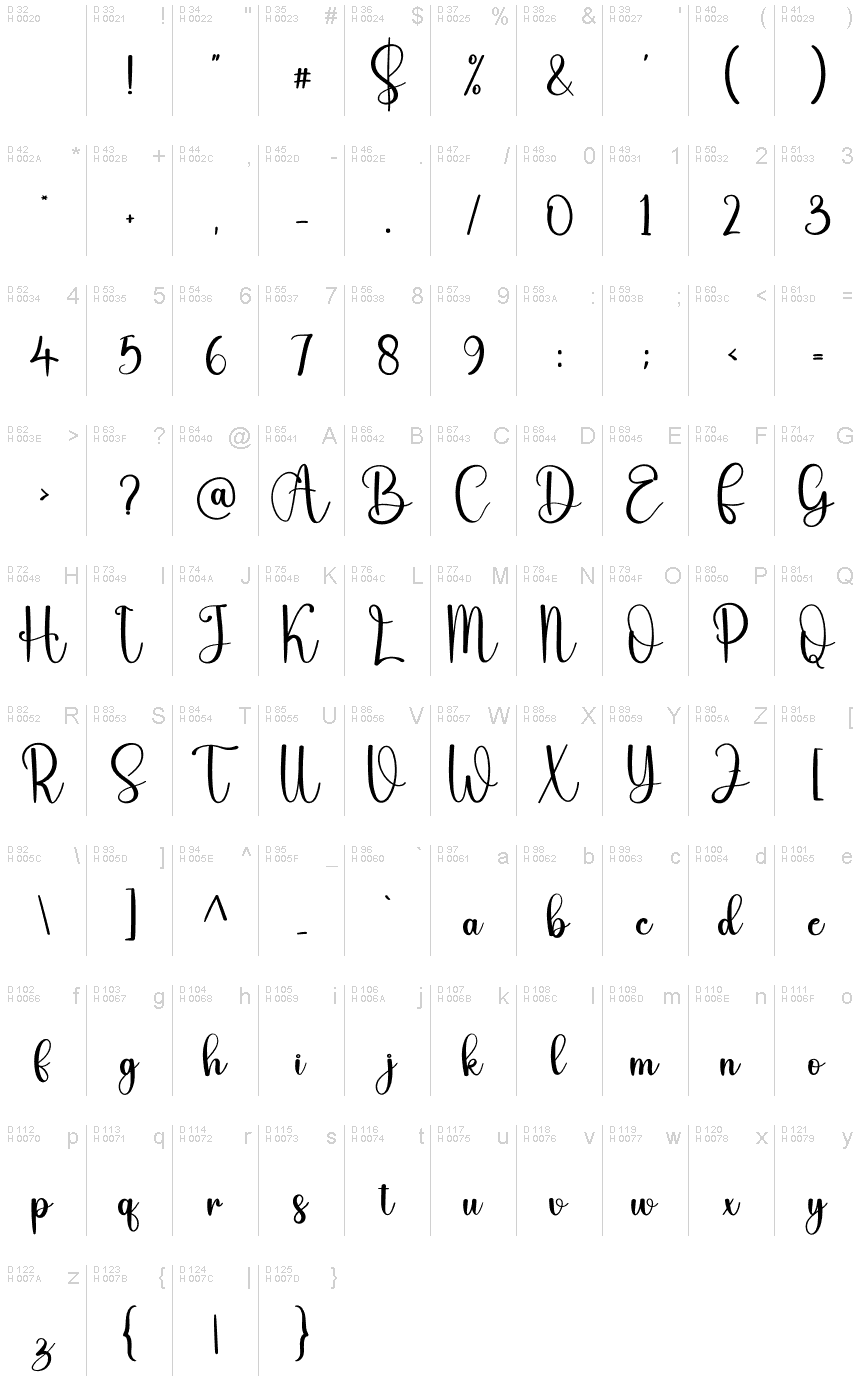
Almond
Almond, a mesmerizing calligraphy font crafted by Harlek Studio, exudes an air of elegance and sophistication.
Its semi-light weight adds a delicate touch to any project, making it perfect for wedding invitations and romantic stationery. With its graceful curves and fluid strokes, Almond brings a sense of refinement to logo designs and branding materials. Additionally, this enchanting font type enhances the beauty of quotes featured on social media graphics or inspirational prints.
Let Almond's captivating charm inspire your next creative endeavor.